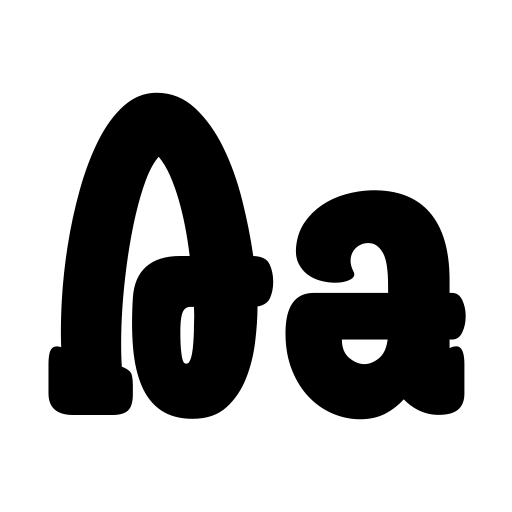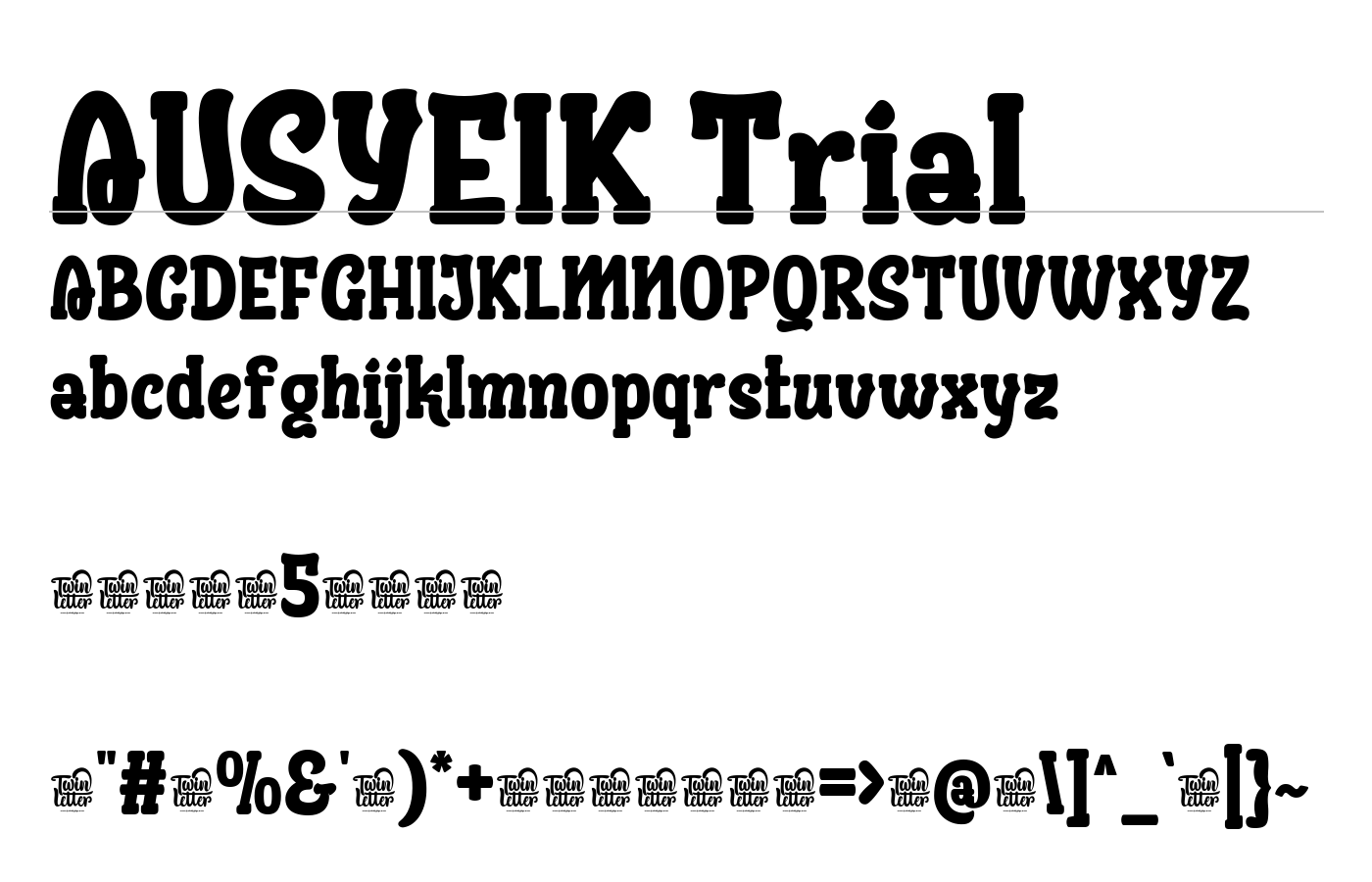
AUSYEIK Trial is a bold, slab serif font with a playful and quirky personality, featuring thick, rounded serifs and a distinctive uneven stroke style that gives it a hand-crafted, vintage feel. Its high x-height and slightly condensed proportions make it eye-catching and suitable for creative, informal branding or headlines where character and charm are needed. This font works well for packaging, posters, and logos that seek a fun, approachable, yet strong presence.
AUSYEIK Trial Font
About AUSYEIK Trial Font